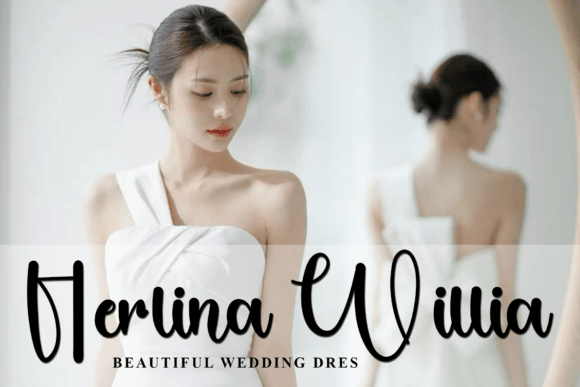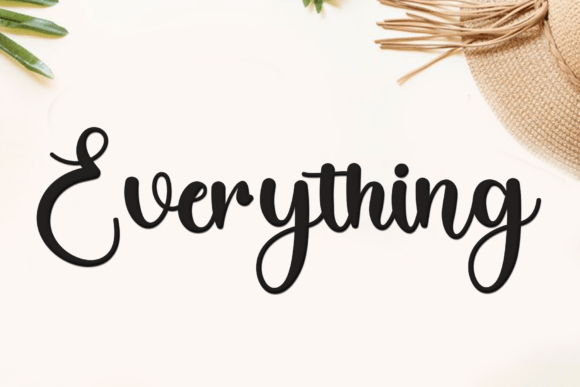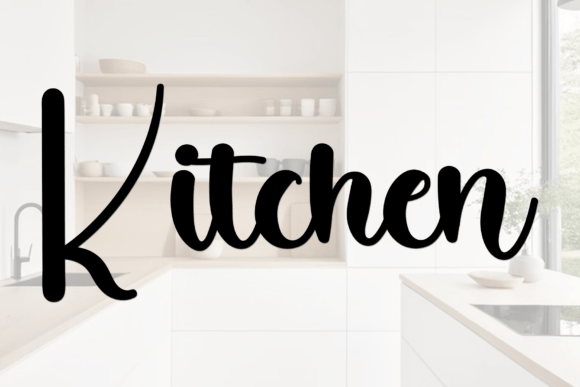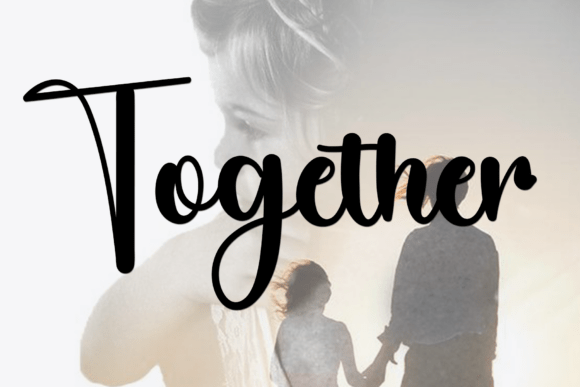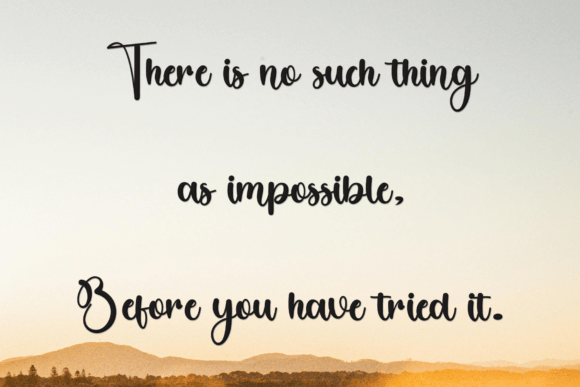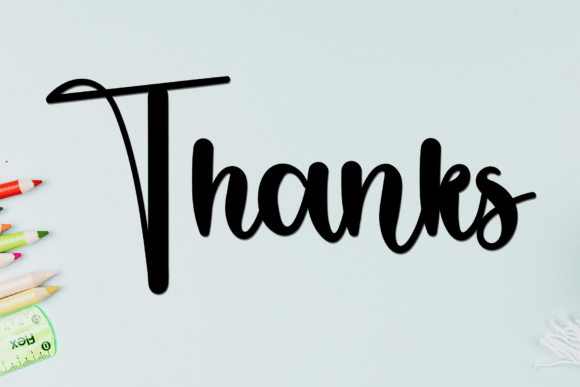
Babyboy Font: The Perfect Addition to Your Design Arsenal
In the world of design, typography plays a crucial role in conveying messages, evoking emotions, and creating visual identities. Among the numerous fonts available, the Babyboy font stands out for its unique blend of softness and distinctiveness. This beautiful font is designed to add a special touch to your design projects, crafts, and creative works. In this article, we’ll explore the features, benefits, and uses of the Babyboy font, making it an essential read for designers, crafters, and creative enthusiasts.
The Distinctive Characteristics of Babyboy Font
The Babyboy font boasts a range of distinctive characteristics that set it apart from other fonts. Its soft, unique touch gives it a special charm, making it perfect for designs that require a personal and emotional connection. The font’s strokes are carefully crafted to create a visually appealing effect, making it ideal for a wide range of applications. Whether you’re working on a logo, branding project, or craft, the Babyboy font is sure to add a touch of elegance and sophistication.
Versatility and Compatibility
A Wide Range of Characters
The Babyboy font offers a wide range of characters, making it perfect for designs that require a high level of customization. With various characters at your disposal, you can create unique and engaging designs that cater to different audiences and artistic fields. Whether you’re working on a children’s book, a craft project, or a professional design, the Babyboy font has got you covered.
Ideal for Design Projects and Crafts
The Babyboy font is an excellent choice for designers and crafters looking to add a personal touch to their projects. Its natural font style makes it perfect for a wide range of products, including:
- Packaging and labeling
- Children’s books and educational materials
- Crafts and DIY projects
- Stationery and invitations
The font’s versatility and compatibility make it an excellent addition to your design arsenal, allowing you to create stunning designs that appeal to a broad audience.
Enhance Your Designs with Babyboy Font
The Babyboy font is designed to enhance your designs, making them more appealing to your target audience. Its unique touch and distinctive strokes add a level of sophistication and elegance, setting your designs apart from the rest. Whether you’re a professional designer or a crafter, the Babyboy font is an excellent choice for anyone looking to create visually stunning designs that leave a lasting impression.
In conclusion, the Babyboy font is a beautiful and eye-catching addition to any design project. Its unique blend of softness and distinctiveness makes it perfect for designers, crafters, and creative enthusiasts. With its versatility, compatibility, and wide range of characters, the Babyboy font is an excellent choice for anyone looking to add a personal touch to their designs. Whether you’re working on a professional project or a craft, the Babyboy font is sure to enhance your designs, making them appealing to a broad audience across different artistic and creative fields.